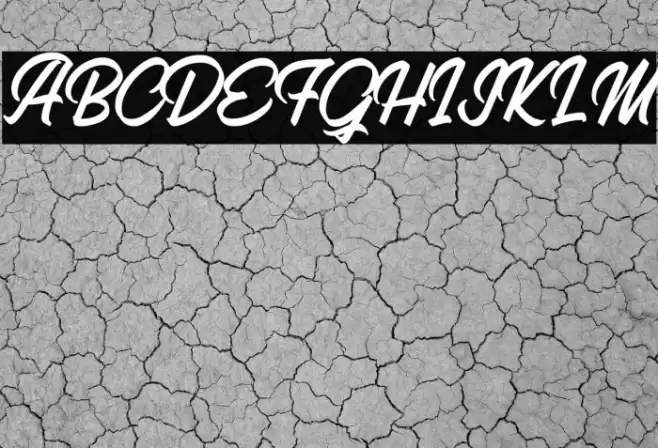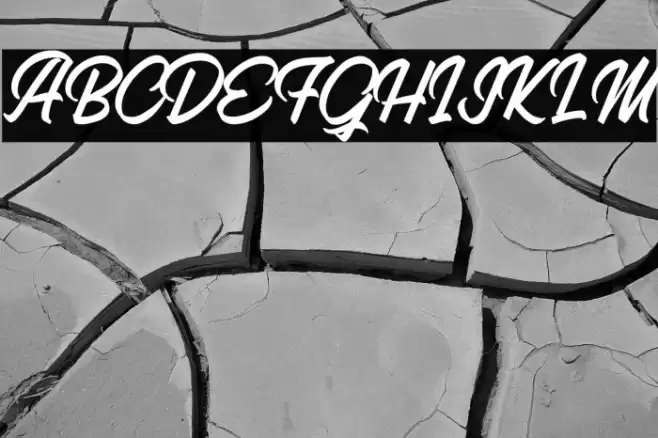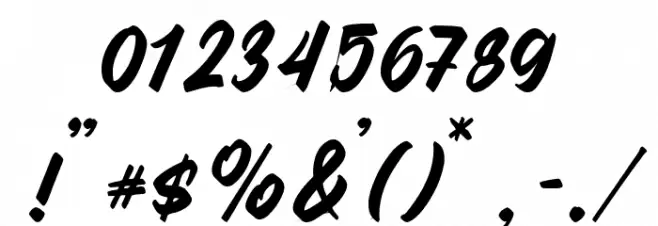
MithaScriptDEMO-Regular Font
MithaScriptDEMO-Regular Description
This font features a dynamic and flowing script style, characterized by its elegant and cursive letterforms. The uppercase letters exhibit a graceful, sweeping motion with a slight slant, while the lowercase letters maintain a consistent fluidity that enhances readability. The numerals are bold and distinct, complementing the overall aesthetic. Special characters are integrated seamlessly, maintaining the script's cohesive look. The font's bold strokes and high contrast between thick and thin lines add to its expressive nature, making it ideal for creative and decorative applications.
A bold, flowing script font with high contrast and elegant cursive letterforms from Uncategorized fonts.